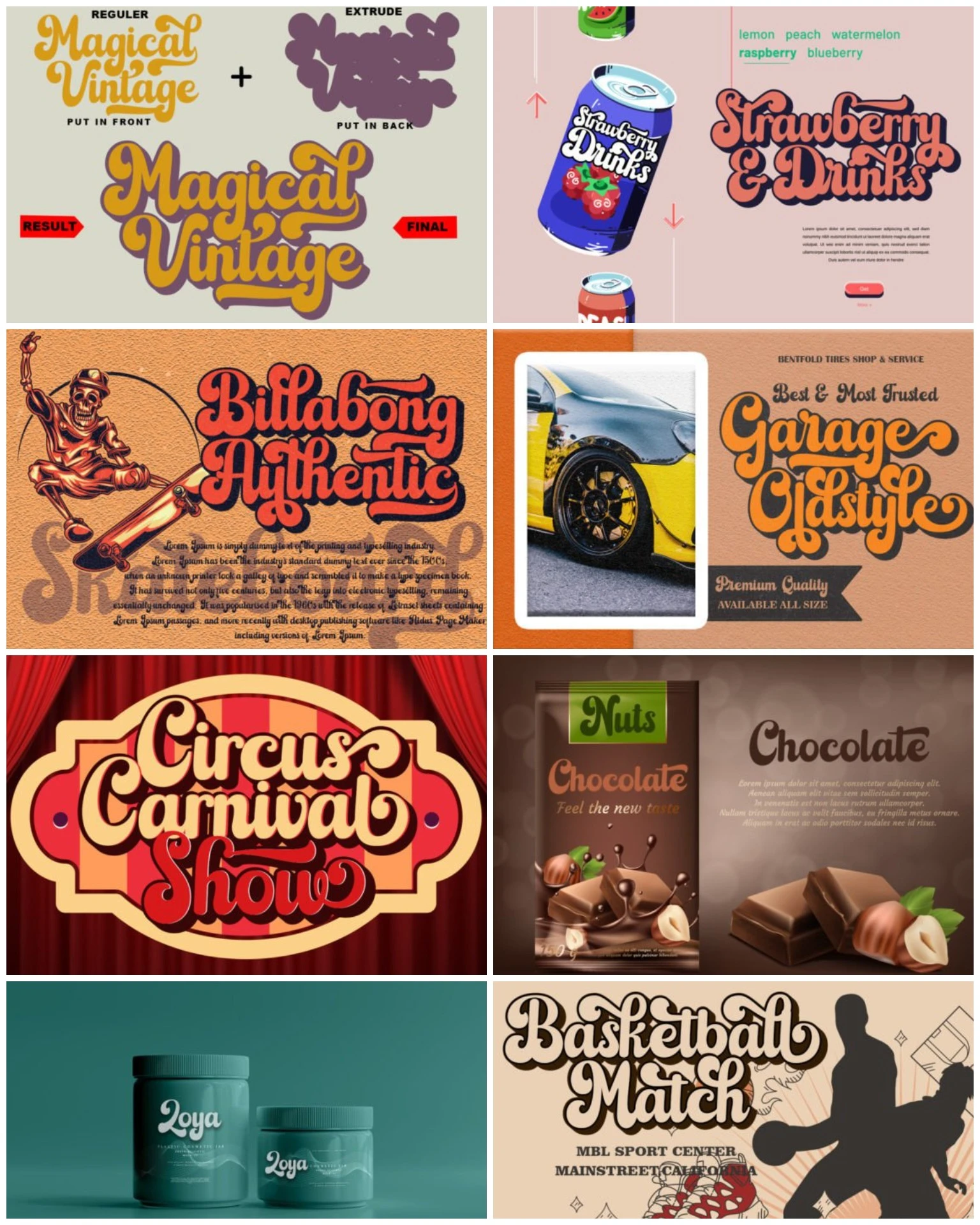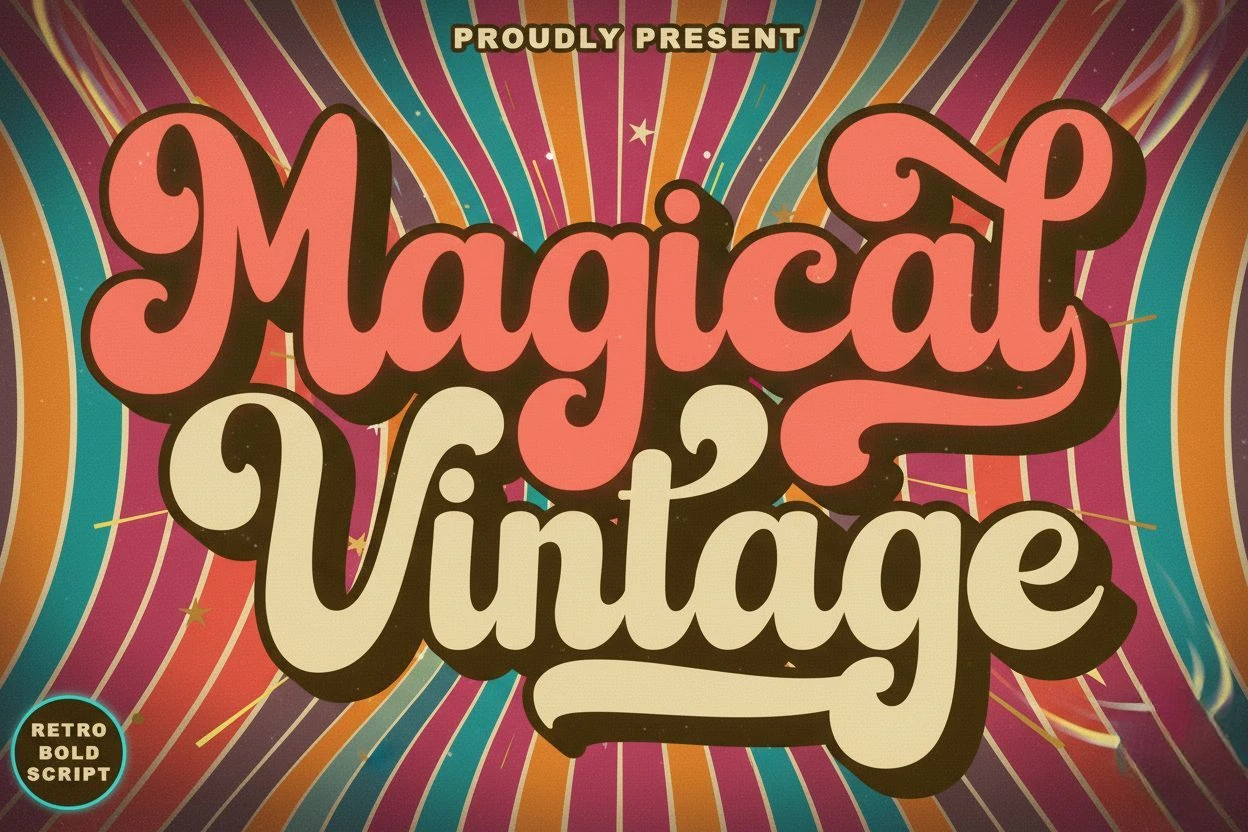
Magical Vintage is a retro 70’s script font designed to bring warm nostalgia into modern creative work. This font delivers the authentic charm of classic lettering, making it perfect for Cricut projects, sublimation prints and bold branding. Its smooth curves and expressive rhythm create eye-catching compositions for logos, product packaging and social media graphics.
With stylistic alternates, contextual forms and refined details, Magical Vintage gives designers the freedom to build expressive layouts with a handcrafted feel. It works beautifully for fashion themes, playful merchandise and signage that needs a soft yet stylish retro atmosphere. Whether you’re creating standout typography for apparel, promotional materials or decorative artwork, Magical Vintage adds a memorable personality inspired by sunny seventies aesthetics.